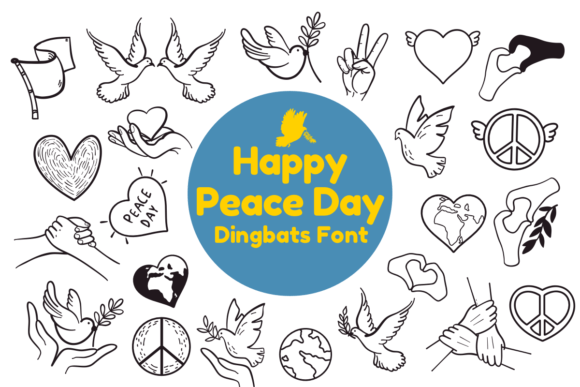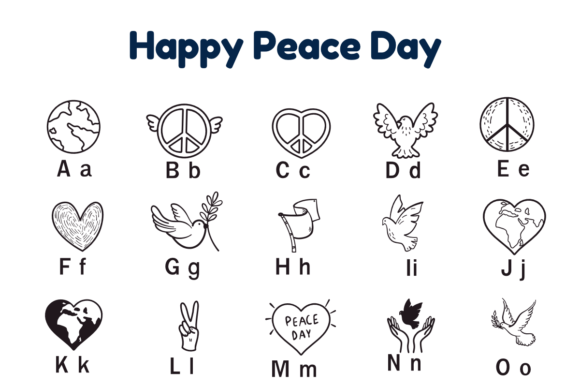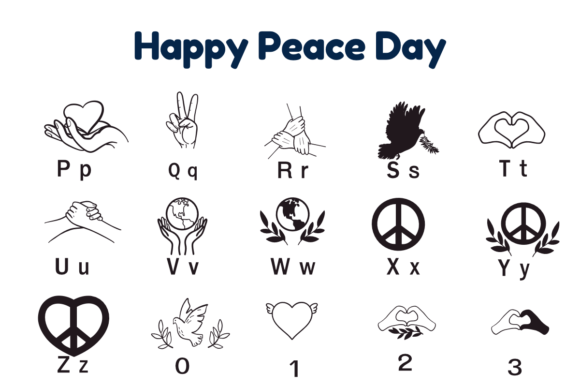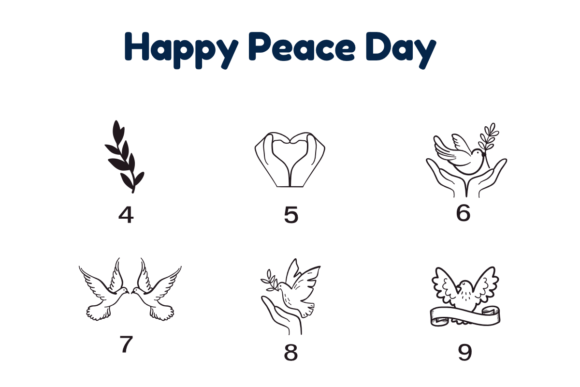
Happy Peace Day Font
About the Happy Peace Day Font
Elevate your designs with Happy Peace Day Font, a font that combines sophistication with readability. Happy Peace Day is a dingbats font with a sketched theme. This font can enhance your creative projects such as wedding invitations, DIY, crafts, decorations, logos, and many other creative ideas.
Happy Peace Day’s sketched style works best for headlines, short text blocks on invitations or packaging, and logos where a handcrafted, friendly feel is desired. It’s ideal for brands emphasizing warmth and approachability, such as artisan businesses, children’s products, or organizations promoting peace and community. Avoid using it for body text or UI elements; its irregular nature makes it difficult to read in large blocks.
Pairing Happy Peace Day with a clean sans-serif font like Open Sans or Lato for body copy provides excellent contrast and readability. For a more playful feel, consider a rounded geometric sans-serif such as Bebas Neue. If a more elegant aesthetic is required, a classic serif like Garamond or a delicate script font would complement its sketched charm.
The font projects a friendly, approachable, and slightly whimsical personality, suitable for projects that need a touch of handmade charm without sacrificing legibility in crucial areas.